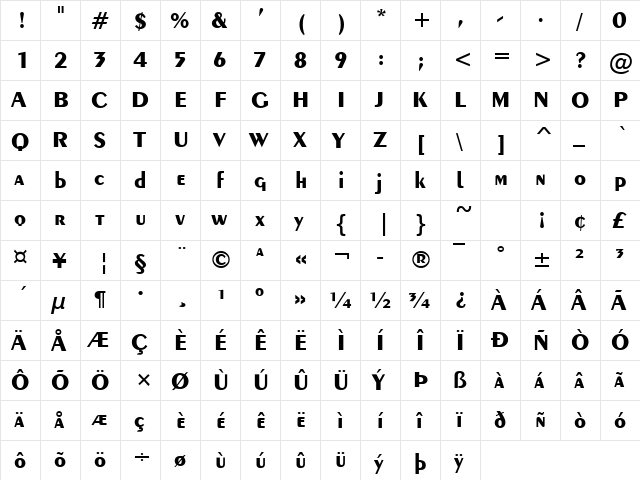
Penwin Bold
Design Context for Penwin Typeface
Penwin takes a measured approach to typography — its balanced proportions and neutral character make it a reliable workhorse for both digital and print work. The heavy weight commands attention and anchors typographic hierarchies.